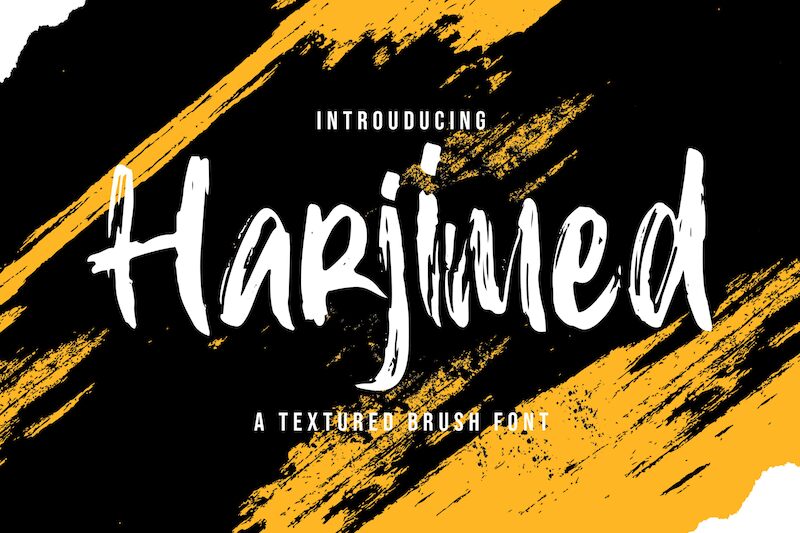
Harjimed font family is a free brush font by StringLabs Creative Studio. The casual and friendly character is what makes the font appear warm to all its viewers, which makes it a joy to read any text written with it. Harjimed is a stylish type you need to transform your typography into a more personal tone that you feel connected to when you read it. This character is full of energy and is meant to give your typography a personalized handwritten feel.
This free font will work well on your next logo, apparel, wedding invitations, packaging, book cover, and branding project. It is particularly useful for advertising and marketing designs where a strong message is required. Use it also in movie and animation titles as well as in art and musical events posters.